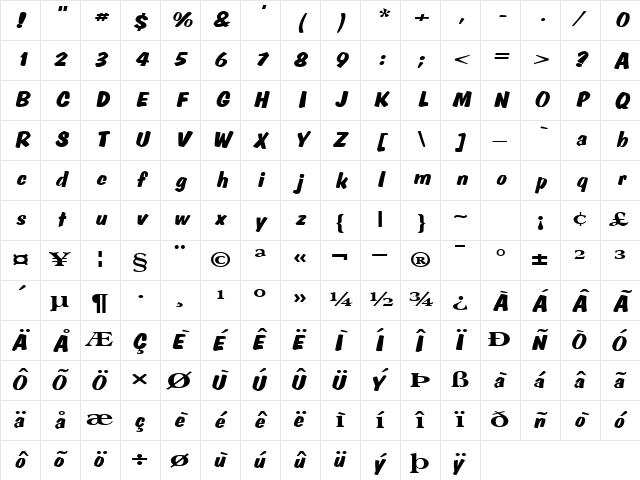
Mandela Regular Free Font
Mandela Regular
Design Context for Mandela
Mandela is a composed and adaptable typeface that performs quietly and consistently across a wide range of design contexts.